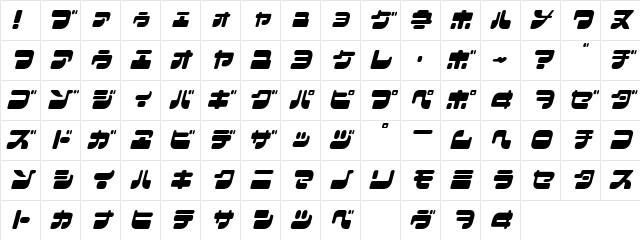
Zodiacok K Regular Free Font
Zodiacok K Regular
Design Context for Zodiacok K
Zodiacok K is a composed and adaptable typeface that performs quietly and consistently across a wide range of design contexts.